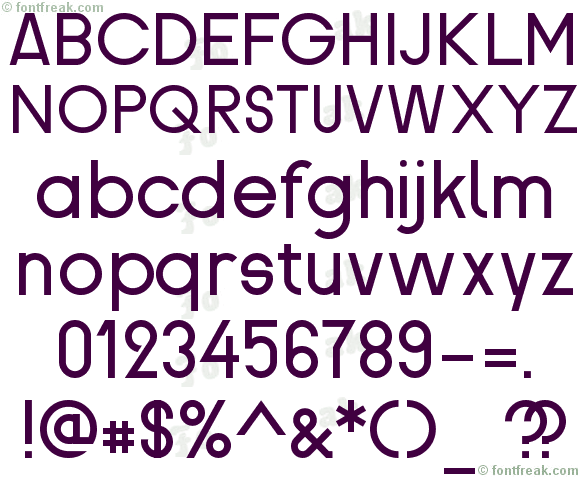
Proletarsk
About Proletarsk
Proletarsk is a striking sans-serif typeface designed by Peter Wiegel, released under a freeware license. This font embodies a modern aesthetic characterized by clean lines and a balanced stroke weight, making it versatile for various design applications. The visual characteristics of Proletarsk include a uniform stroke width, minimal contrast, and ample spacing between characters, which enhance readability and give it a contemporary feel. The overall design is straightforward yet impactful, ideal for conveying messages with clarity and style.
This font excels in a variety of use cases. It is particularly effective for branding projects, where clarity and modernity are essential. Proletarsk works wonderfully on restaurant menus, providing a clean and inviting look that complements culinary offerings. Additionally, it is suitable for event flyers and promotional materials, where its bold and straightforward nature can attract attention. Graphic designers can also utilize this font for website headers and social media graphics, ensuring that the text remains legible across various platforms.
The target audience for Proletarsk includes graphic designers, small business owners, and content creators who seek a reliable and stylish font for their projects. Its simplicity and modern appeal make it an excellent choice for those aiming to create a professional image without overwhelming their audience with decorative elements.
What truly sets Proletarsk apart is its ability to blend functionality with aesthetic appeal. The balance between readability and style makes it a valuable addition to any designer's toolkit. For those looking to enhance their projects with a contemporary touch, the Proletarsk font free download offers an accessible option that does not compromise on quality.